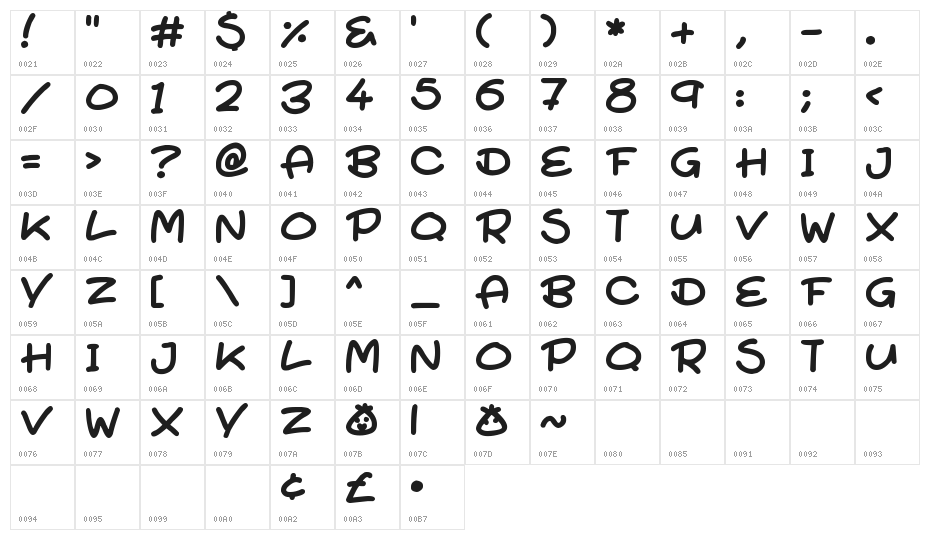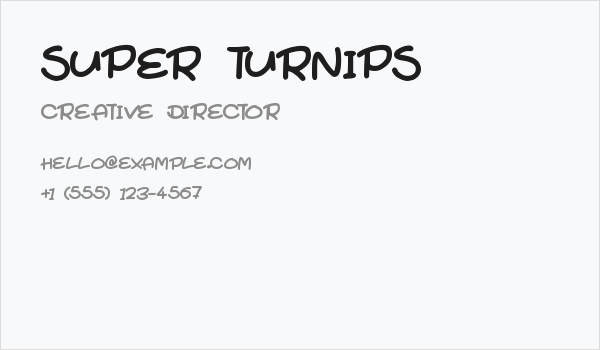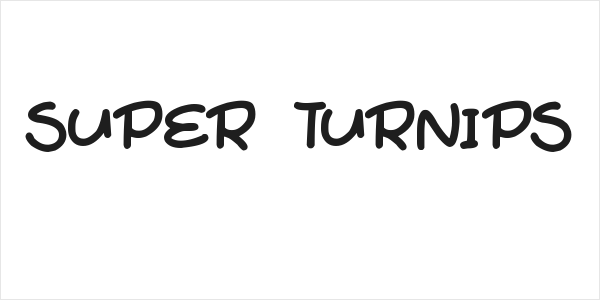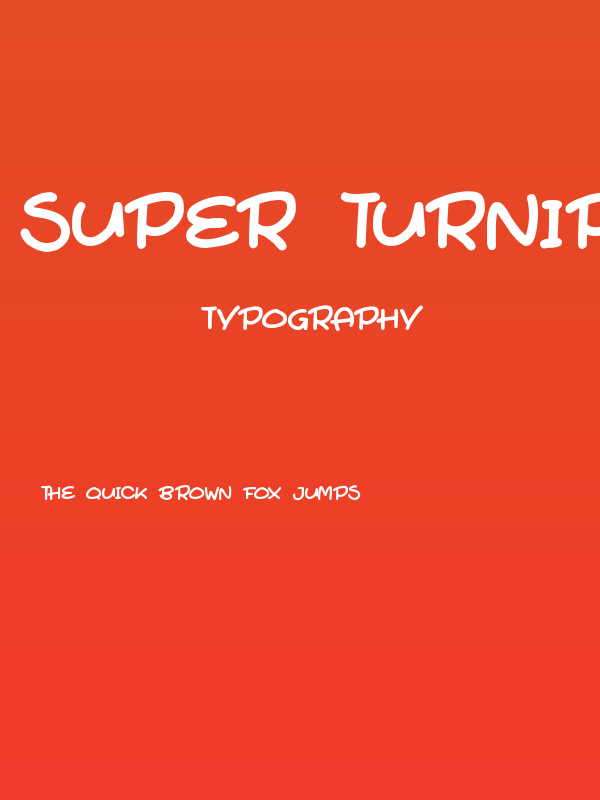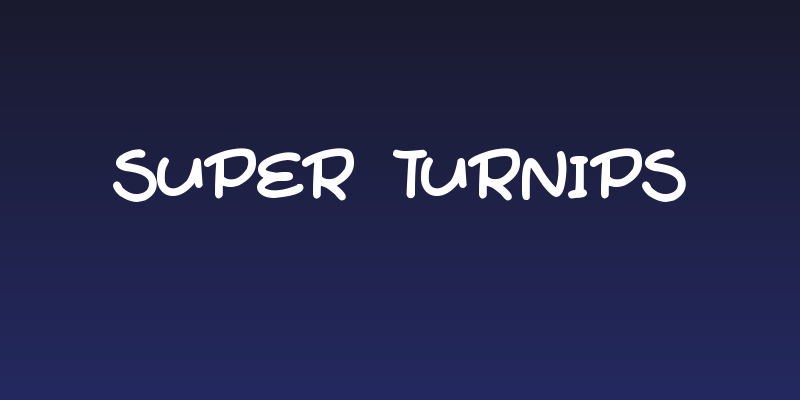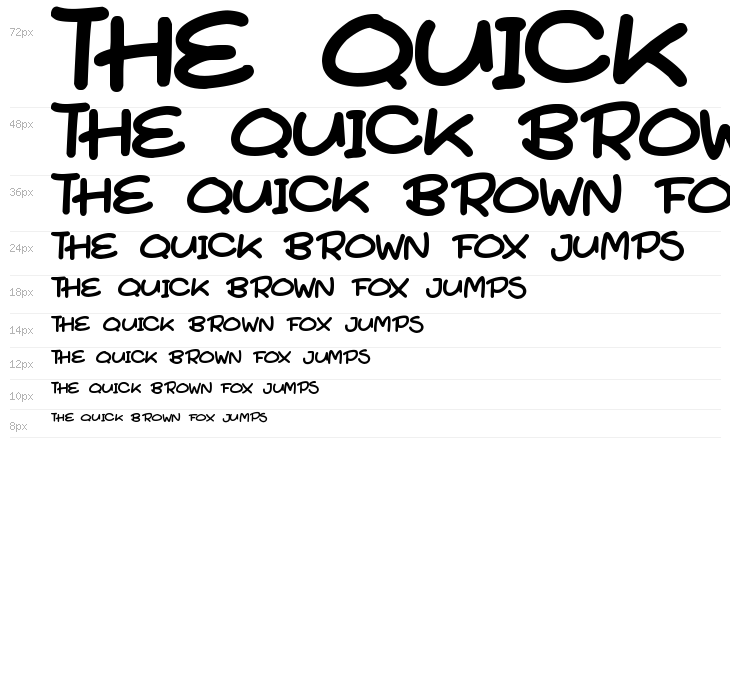
Super Turnips Font
Super Turnips Description
This playful and bold font features rounded, smooth strokes that give it a friendly and approachable appearance. The characters are slightly slanted, adding a dynamic and energetic feel. The uppercase and lowercase letters maintain a consistent style, with a uniform thickness throughout. The numbers and special characters are designed to match the overall aesthetic, ensuring a cohesive look. The font's informal style makes it ideal for projects that require a fun and engaging tone.
Overall StylePlayful
Proposed ProjectsIdeal for children's books, playful branding, casual invitations, and social media graphics.